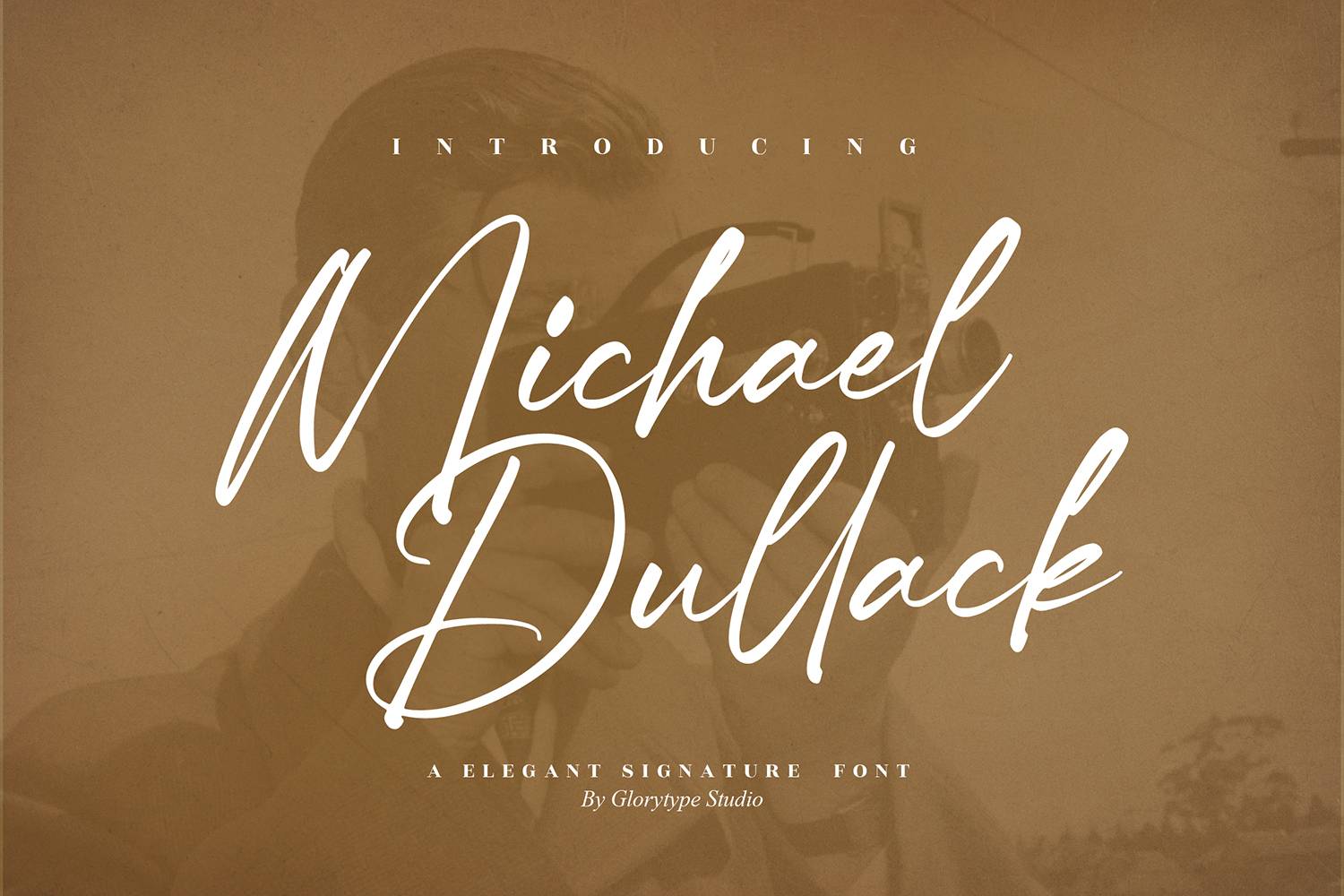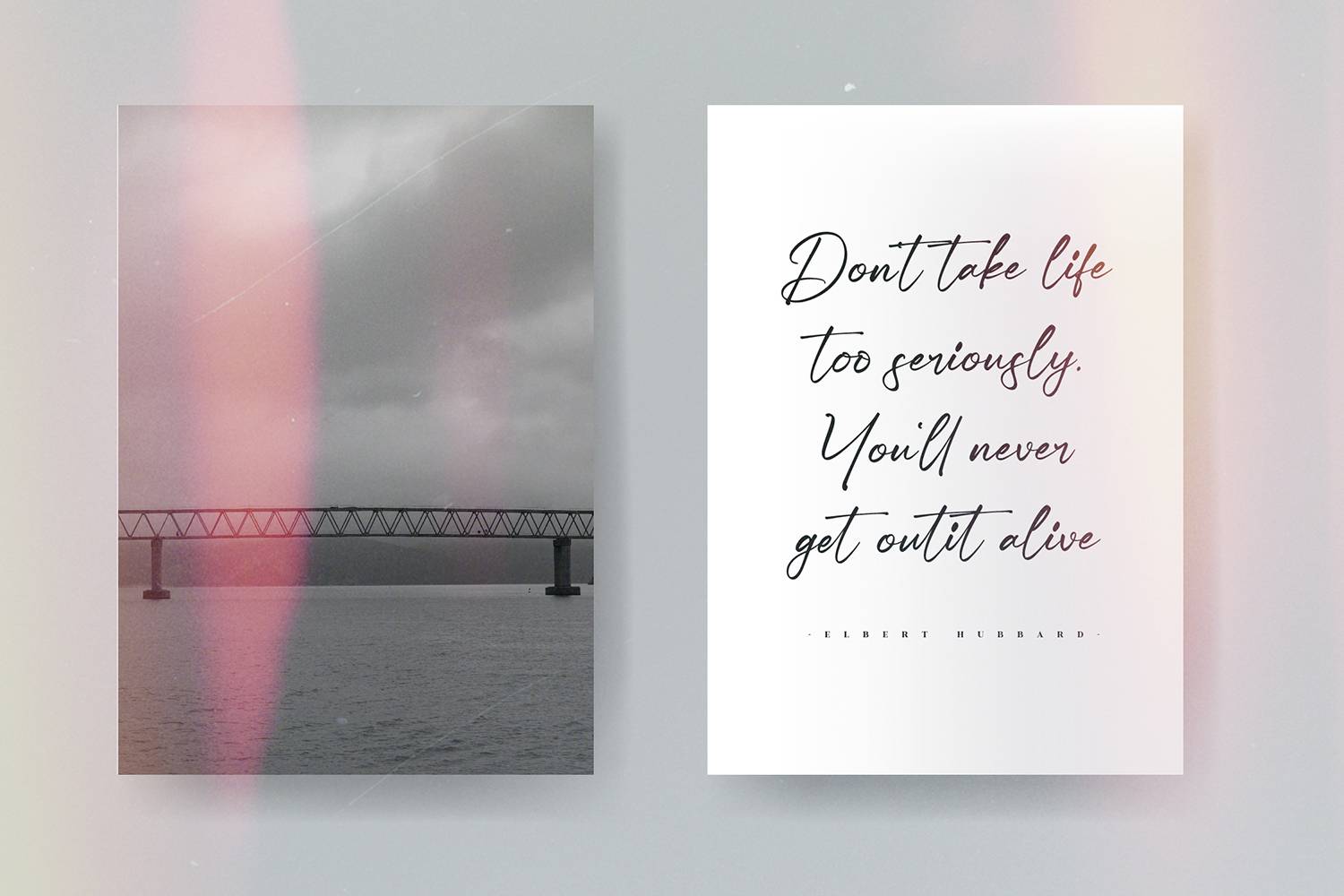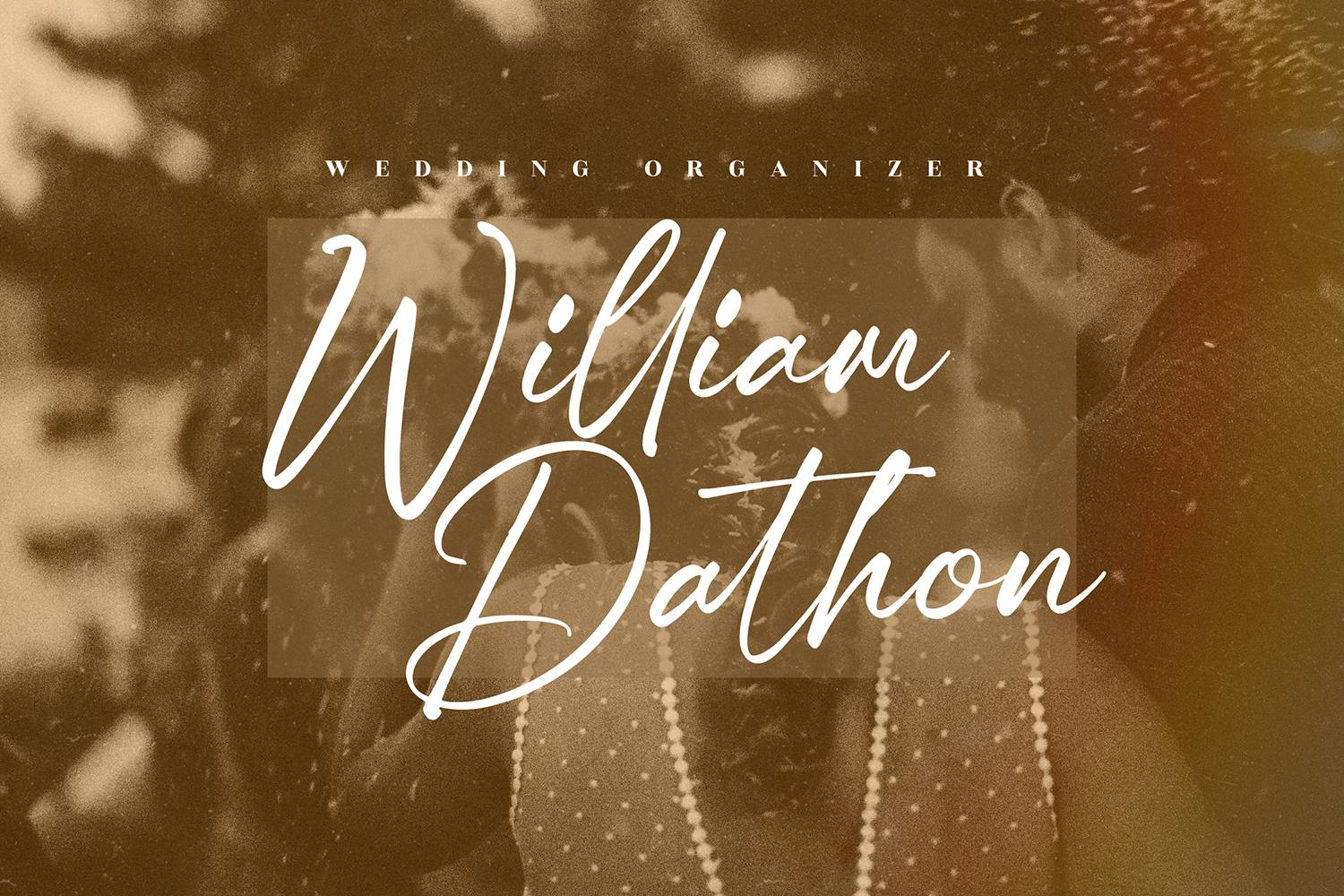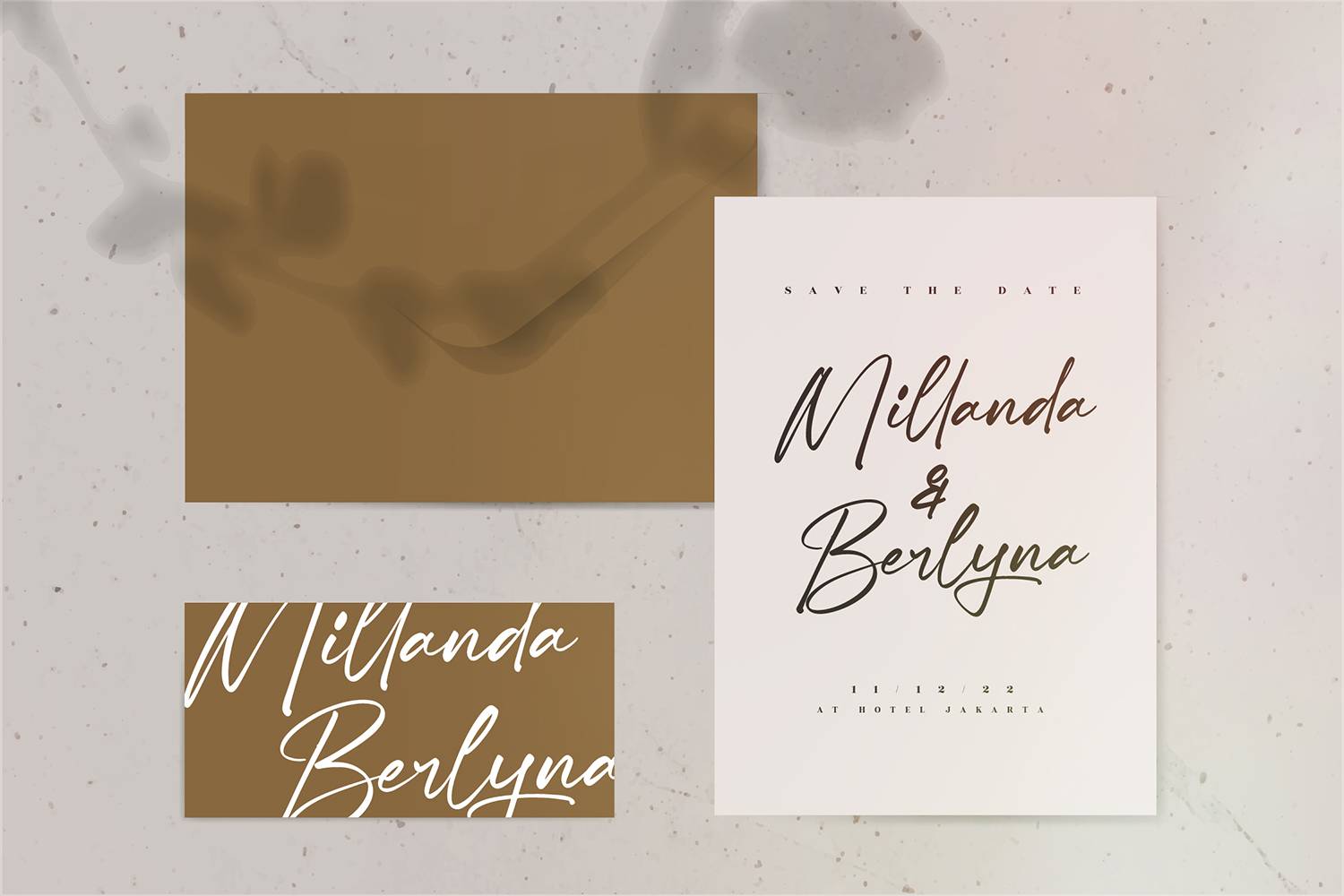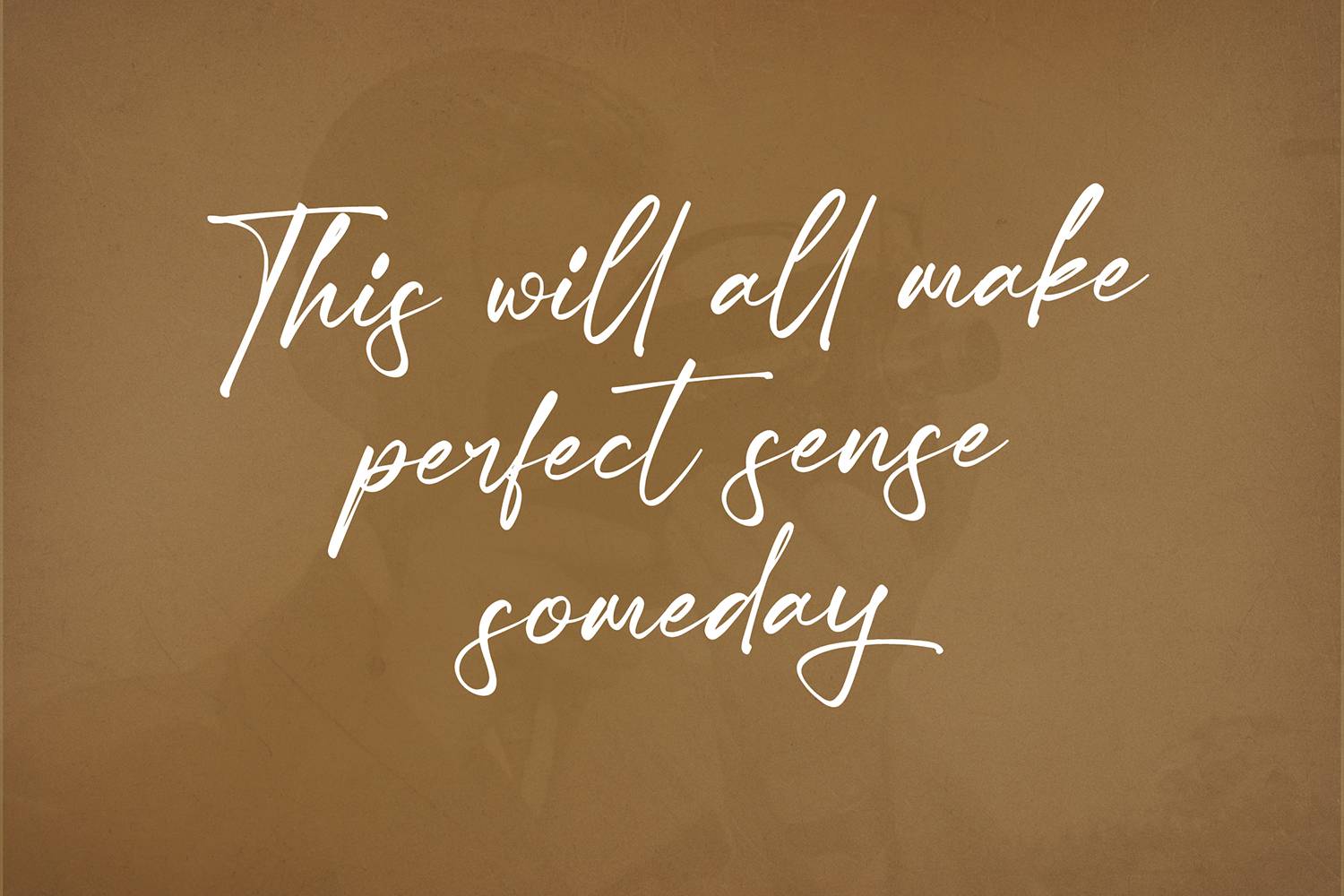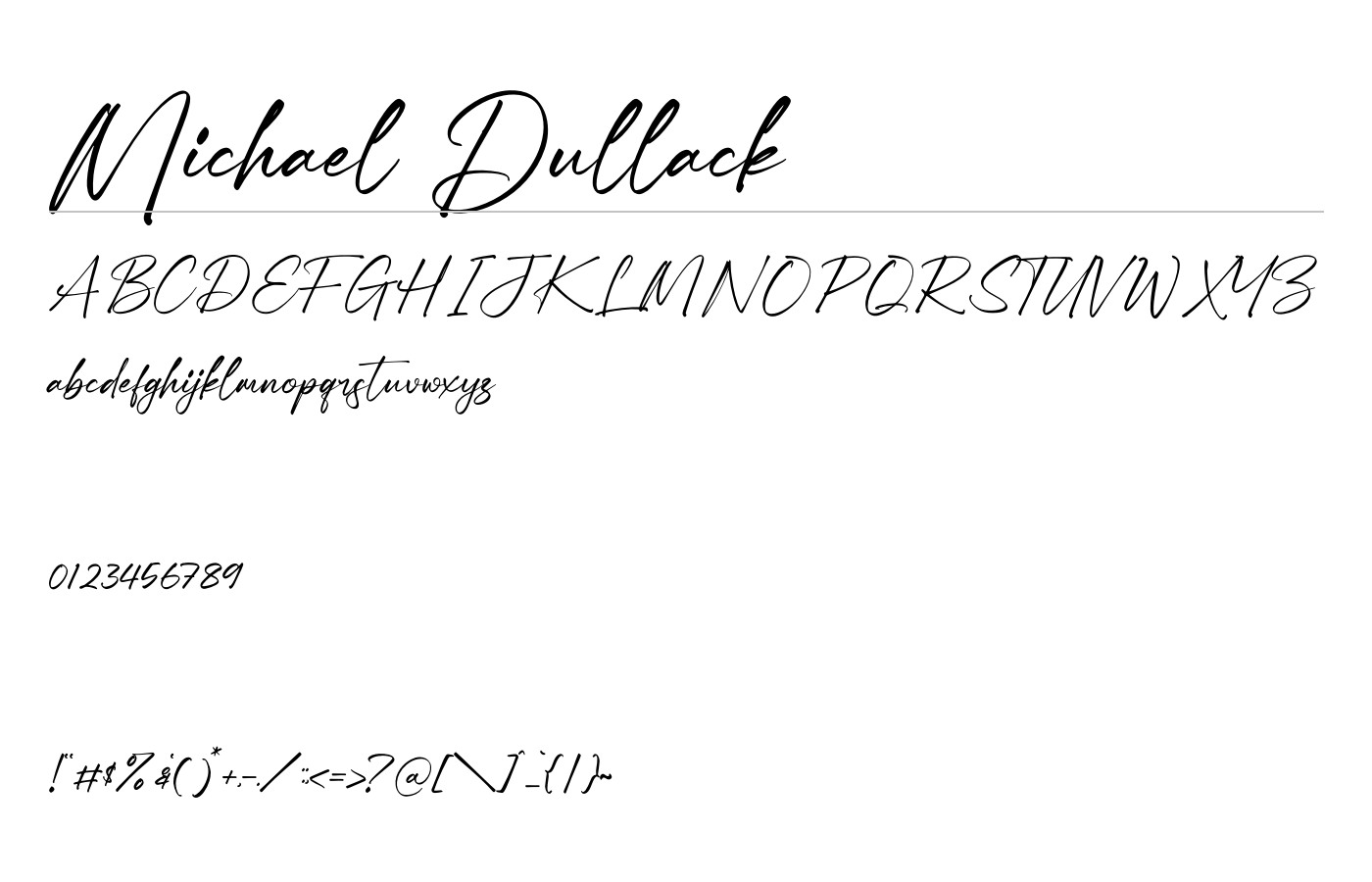
Michael Dullack is an elegant, handwritten script font characterized by its slender, flowing strokes and high-contrast thin lines that create a refined and stylish appearance. Its natural, cursive letterforms convey a personal and sophisticated feel, making it ideal for branding, wedding invitations, and other designs that seek a chic, intimate touch. This font works beautifully for headlines and logos where a graceful, artistic impression is desired.
Michael Dullack Font
About Michael Dullack Font